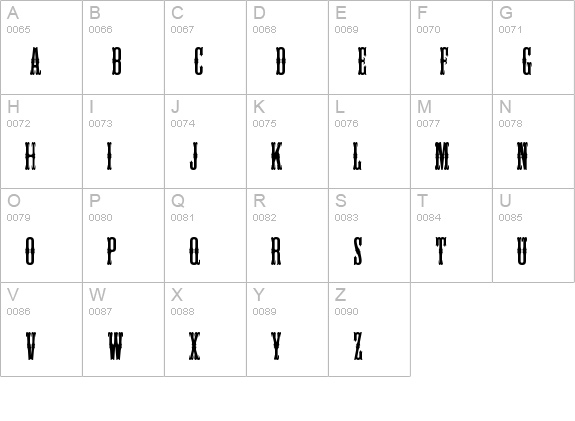
High Country Font Details
High Country font is a versatile and stylish typeface that exudes a sense of ruggedness and adventure. Inspired by the majestic landscapes of the high country, this font features bold, clean lines and a modern aesthetic that is perfect for a wide range of design projects. Whether you're creating branding materials for a outdoor company, designing a poster for a wilderness event, or crafting a logo for a hiking club, High Country font is sure to make a statement. And the best part? High Country font is available for free download at FontsMarket.com. So you can easily add this unique and eye-catching font to your collection without breaking the bank. Don't miss out on the opportunity to enhance your designs with the bold and adventurous style of High Country font.